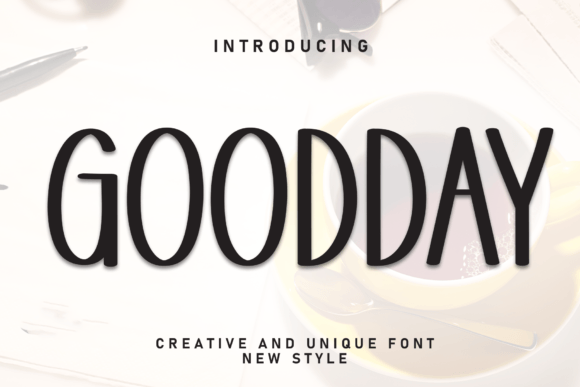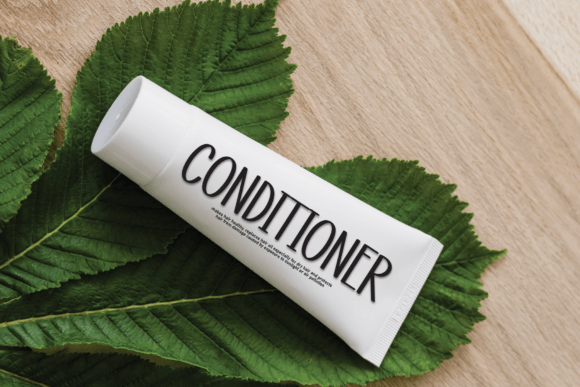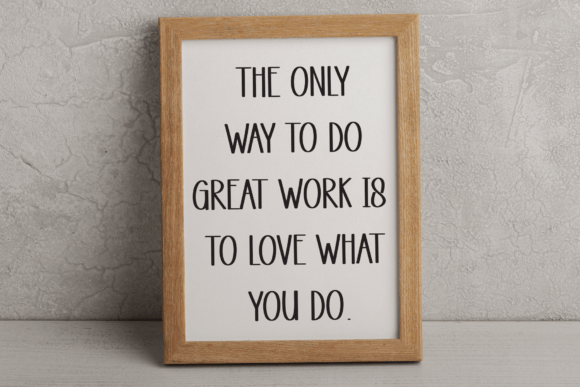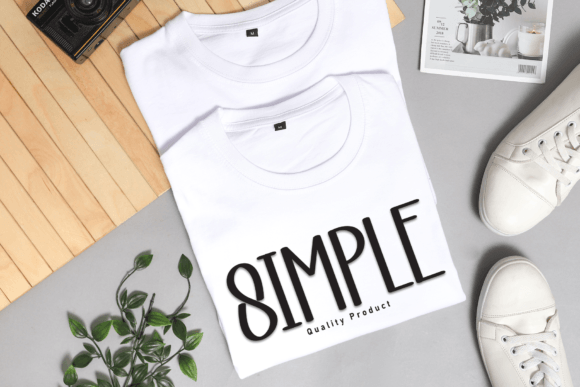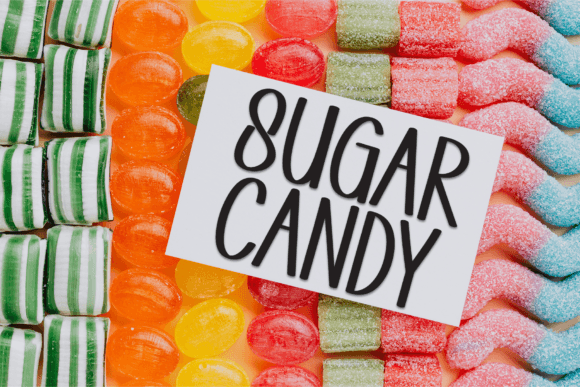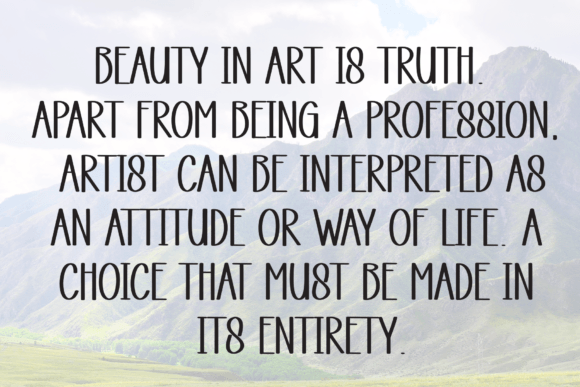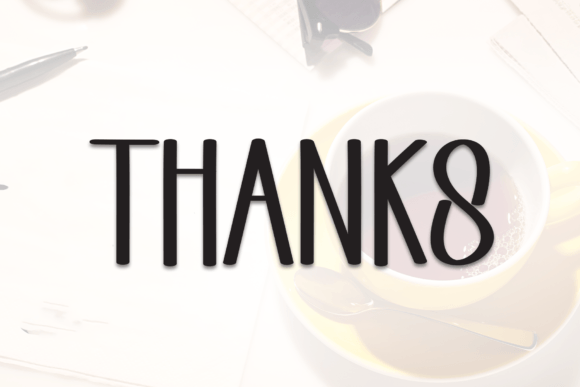
Discover the Joy of Handwritten Charm
As I sat at my desk, staring at a blank page, I knew exactly what I needed to spark my creativity – a dash of whimsy. It was then that I stumbled upon Goodday Font, a delightful handwritten display font that instantly captured my heart. Its charming, endearing quality seemed to whisper sweet nothings of joy and friendliness, making me smile from ear to ear.
Goodday Font is the perfect companion for designers seeking to add a sprightly touch of amusement to their artistry. Whether you’re crafting loving wedding invitations, heartfelt cards, or simply want to inject some personality into your designs, this font is sure to deliver. Its cute, whimsical nature makes it an invaluable asset for any designer looking to infuse their work with a warm, inviting feel.
Goodday Font Key Features
- Font Family: Goodday Font is a sans-serif font family designed for digital use.
- Character Count: The Goodday Font family includes over 800 glyphs, covering multiple languages and scripts.
- Size and Resolution: Optimized for use at font sizes ranging from 10 to 24 points, with a resolution of 300 DPI (dots per inch).
- Unique Characteristics: The Goodday Font features a modern and friendly design, with a subtle rounded feel that makes it suitable for both body text and display use.
Designer Review: Goodday Font
As a designer, I’ve had the opportunity to work with a wide range of fonts, and my experience with Goodday Font has been quite interesting. Here’s my honest review:
- Goodday Font is a versatile sans-serif typeface that works well for both body text and headings.
- The font’s friendly and approachable nature makes it perfect for use in digital products, such as apps, websites, and social media platforms.
- The font’s open shapes and rounded edges give it a modern feel, which is great for contemporary designs.
- Goodday Font is highly legible, even at smaller font sizes, making it an excellent choice for reading-heavy content.
- The font’s rounded edges, while visually appealing, can make it appear somewhat childish in certain contexts.
- Goodday Font may not be the best choice for formal or professional designs, as it lacks the sophistication and elegance of more traditional serif fonts.
- The font’s high x-height can make it appear slightly too large for certain text blocks, so careful kerning is essential.
Overall, I think Goodday Font is a solid choice for designers looking for a friendly and approachable sans-serif typeface. While it may not be the best fit for every project, it’s a great option for digital products and modern designs. With some careful consideration of its limitations, Goodday Font can be a valuable addition to any designer’s toolkit.
Goodday Font Practical Application Guide
Getting the Most Out of Goodday Font
Use Goodday Font for headlines, titles, and short paragraphs where you want to create a clean and modern look.
Experiment with different font sizes and styles to add visual interest to your design.
Combine Goodday Font with other fonts to create a unique and eye-catching typography scheme.
Use Goodday Font for: